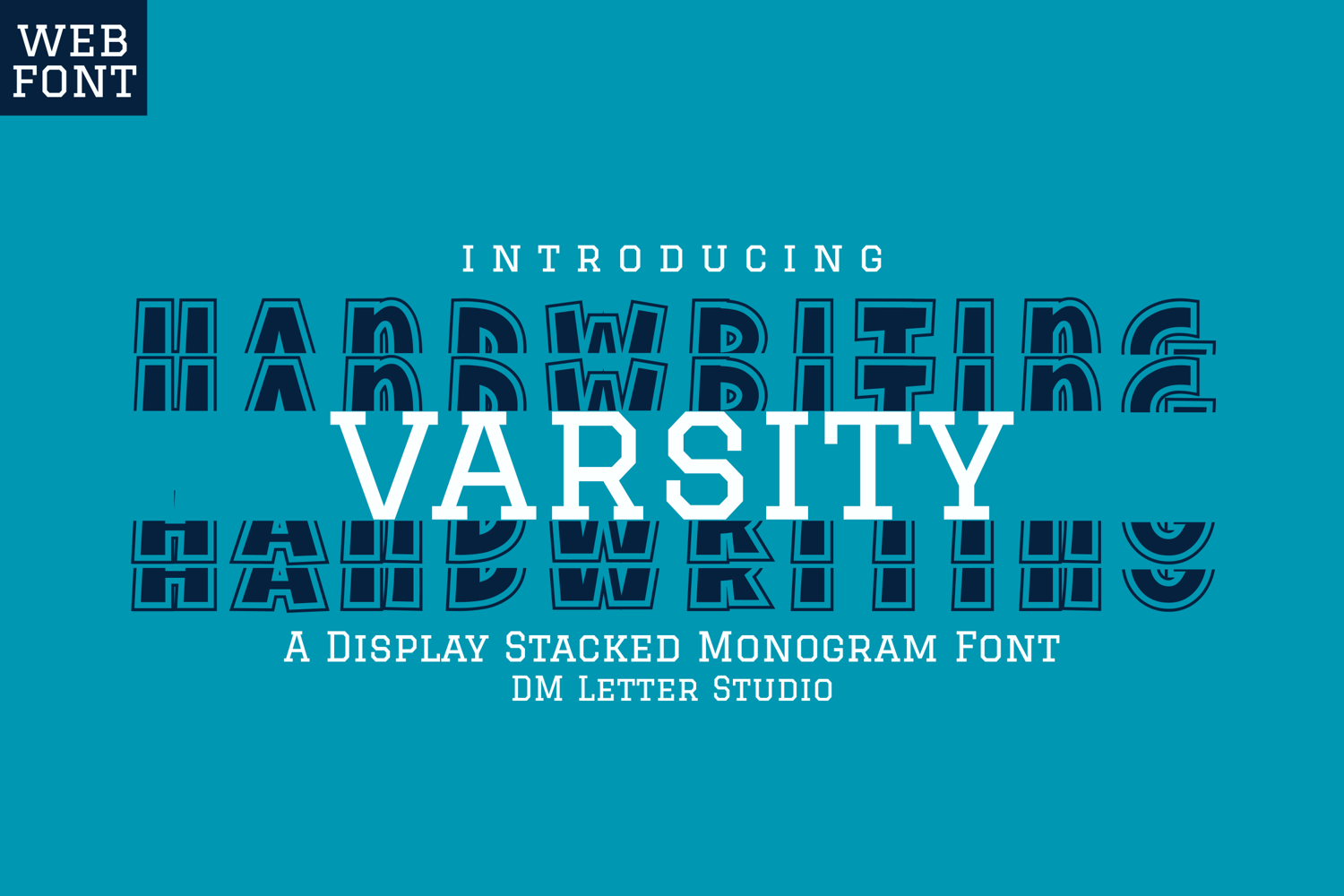
Handwriting Varsity Stacked Monogram Font
The Handwriting Varsity Stacked Monogram Font blends sporty varsity style with a casual handwritten flair, creating a bold yet profesional monogram experience. Designed especially for custom apparel, team merchandise, and branding, this font is perfect for crafting standout stacked initials with a unique personality. Whether you’re designing sports jerseys, custom tumblers, or trendy monogrammed gifts, this font brings a playful and athletic charm to every project.
• Stacked Monogram Format: Create clean and stylish vertical monograms effortlessly.
• Varsity Meets Handwritten: Classic varsity block shapes softened with a casual hand-drawn look.
• Perfect for Professional: Ideal for DIY projects, Cricut/Silhouette designs, and professional gifts.
• Multi-Purpose Use: Great for sports branding, spirit wear, stickers, stationery, and more.